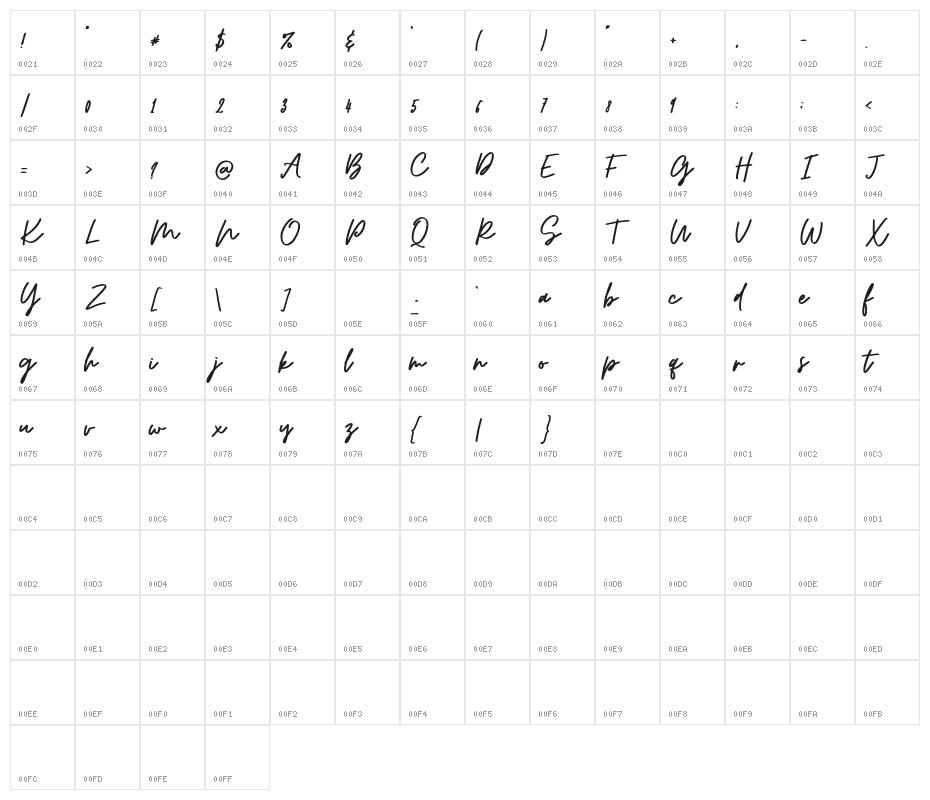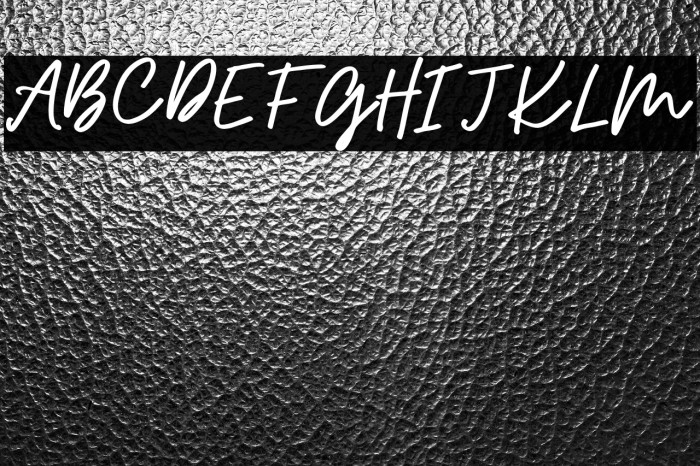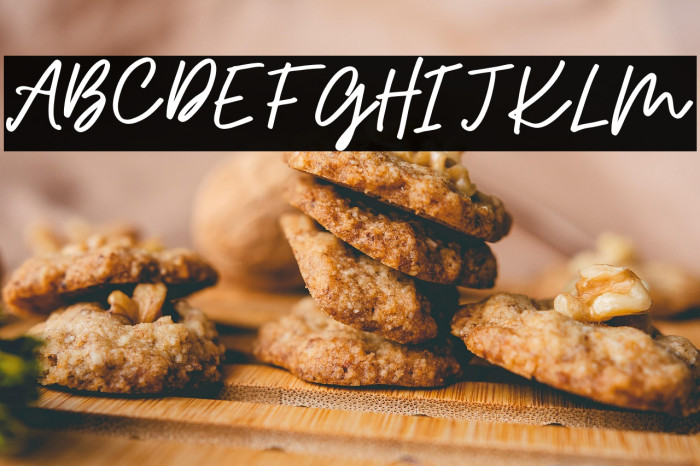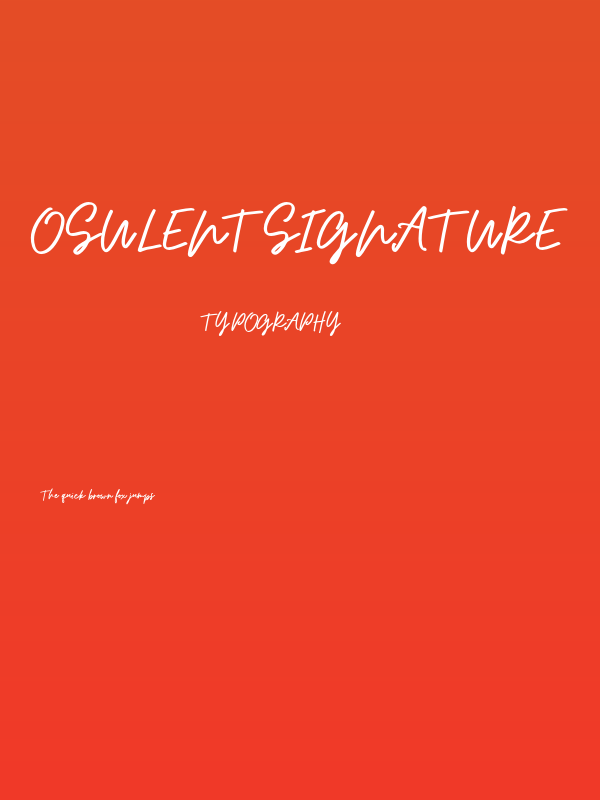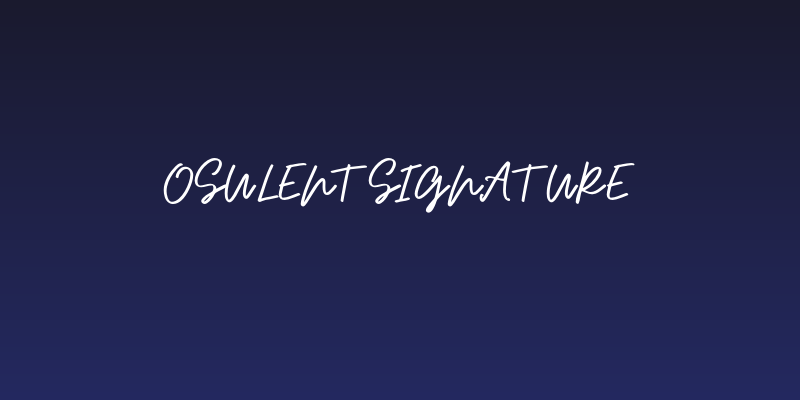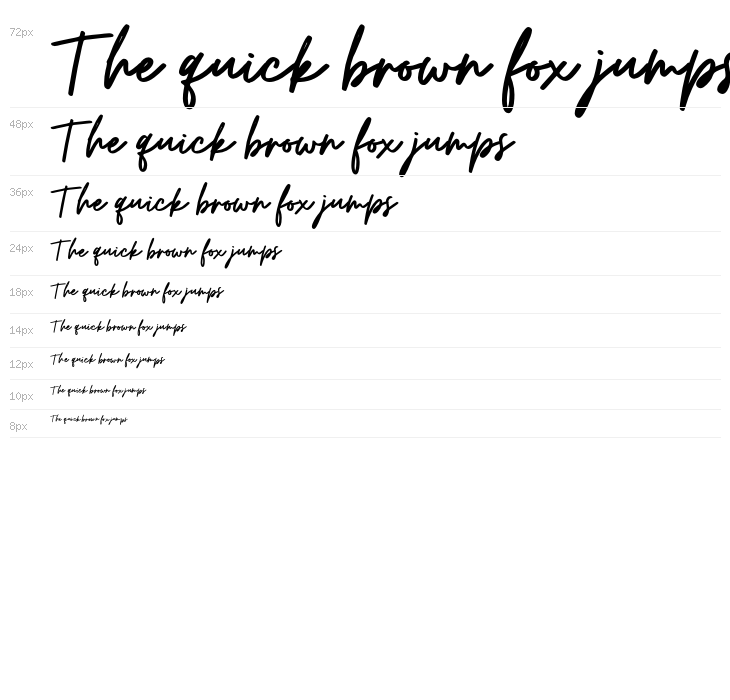
OsulentSignature Font
OsulentSignature Description
This font exudes a modern and stylish handwritten aesthetic, characterized by fluid and dynamic strokes that mimic natural handwriting. The uppercase letters are bold and slightly slanted, providing a sense of movement and elegance. The lowercase letters maintain a consistent flow, enhancing readability while retaining a personal touch. Numbers are clear and distinct, complementing the overall style. Special characters are crafted with the same attention to detail, ensuring they blend seamlessly with the alphabet. The font's design is versatile, making it suitable for a variety of creative projects.